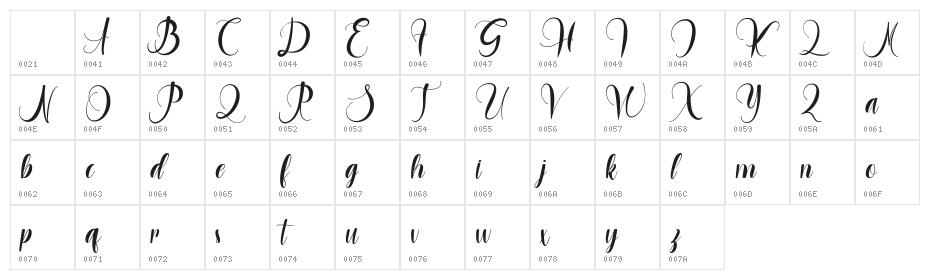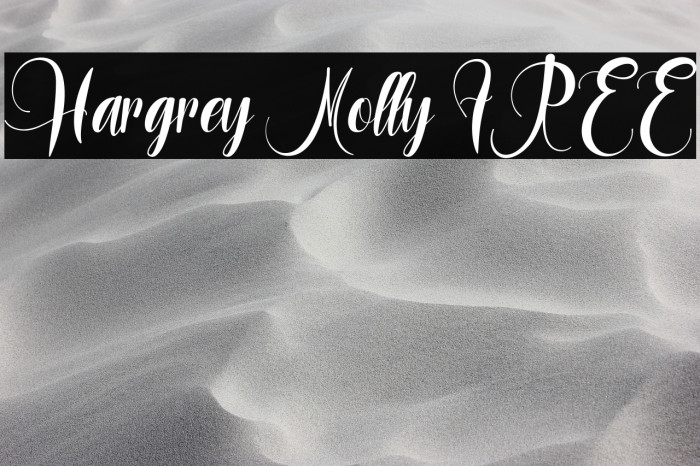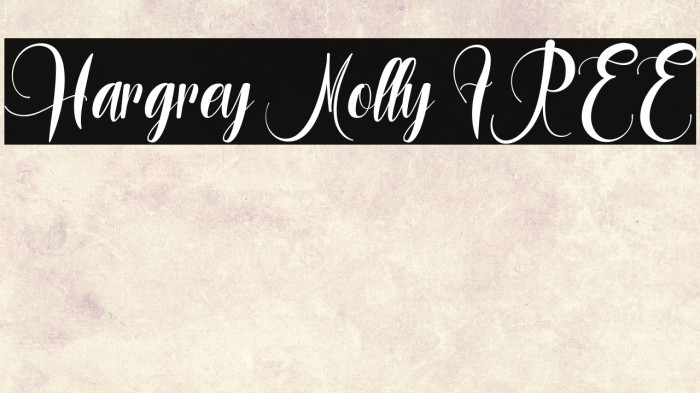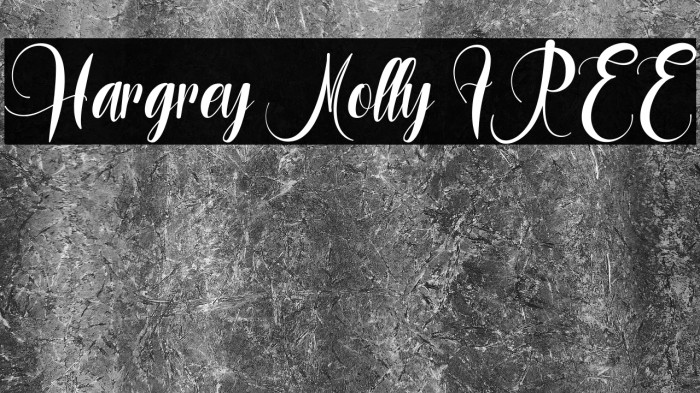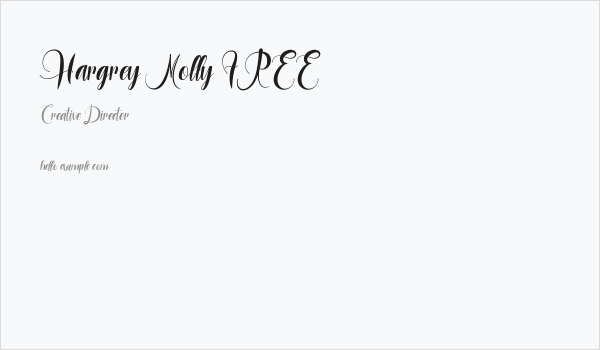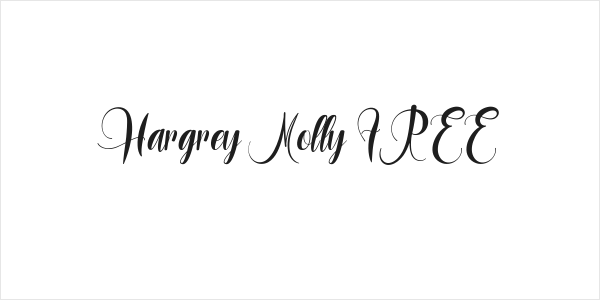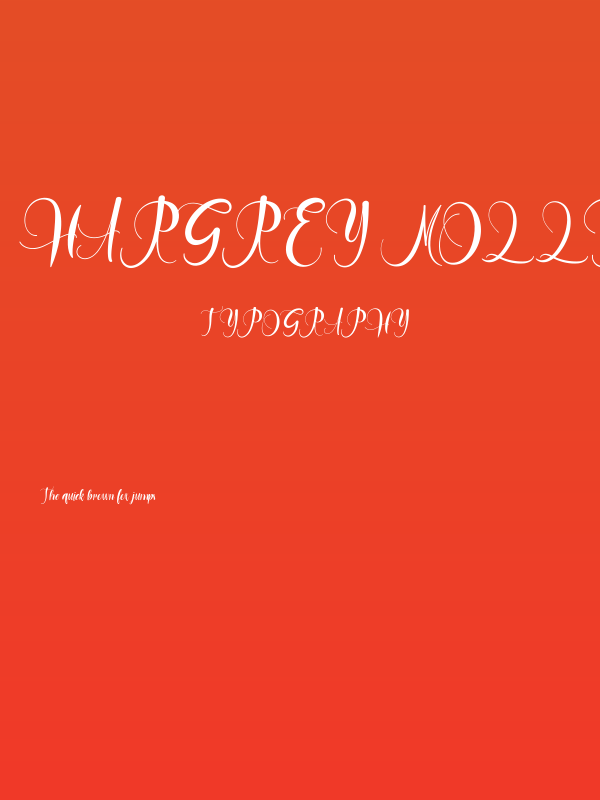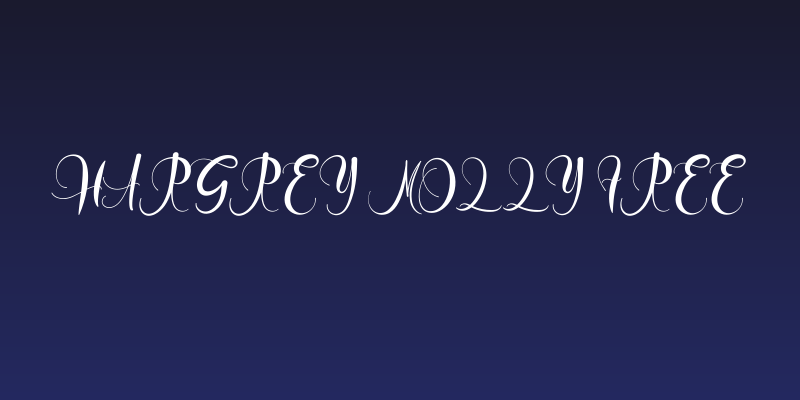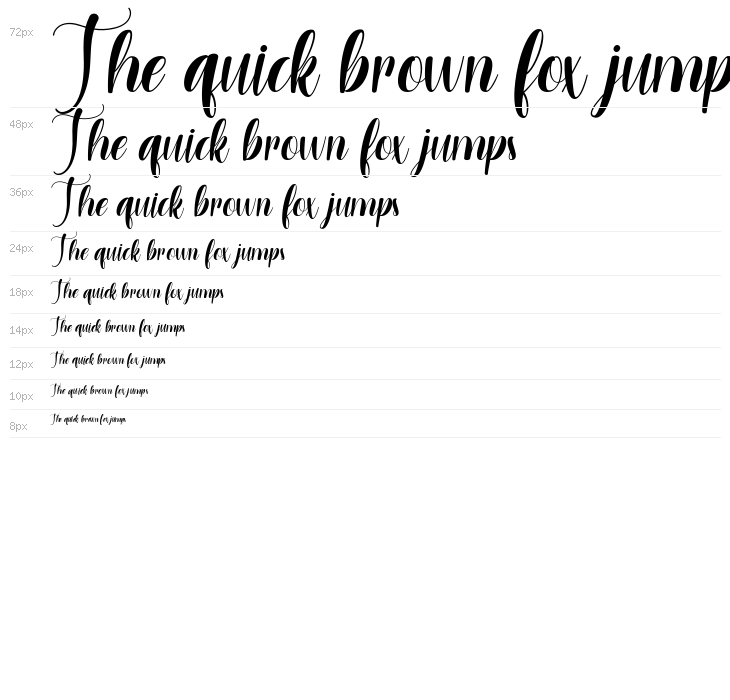
Hargrey Molly FREE Font
Hargrey Molly FREE Description
This font features an elegant and flowing script style, characterized by its graceful curves and loops. The uppercase letters exhibit a sophisticated flair with extended strokes and delicate serifs, while the lowercase letters maintain a smooth and connected appearance, enhancing readability. The overall design exudes a sense of elegance and refinement, making it suitable for formal and decorative applications. The font's intricate details and balanced proportions contribute to its aesthetic appeal, offering a harmonious blend of classic and modern elements.
| Use Case | Headlines, Invitations, Branding |
| Proposed Projects | Ideal for wedding invitations, elegant branding, greeting cards, and decorative headings. |